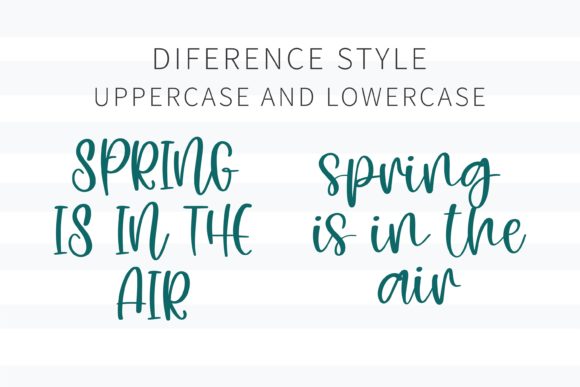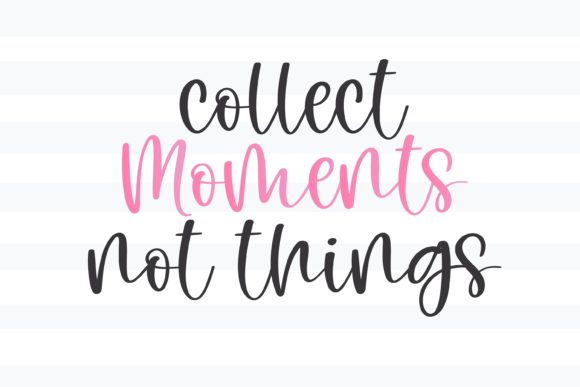
Spring Has Arrived Font
db-ku.com - Script & Handwritten -- Spring Has Arrived is a sweet and casual handwritten font. Fall in love with its incredibly versatile style and use it to create gorgeous wedding invitations, beautiful stationary art, eye-catching social media posts, and much more!